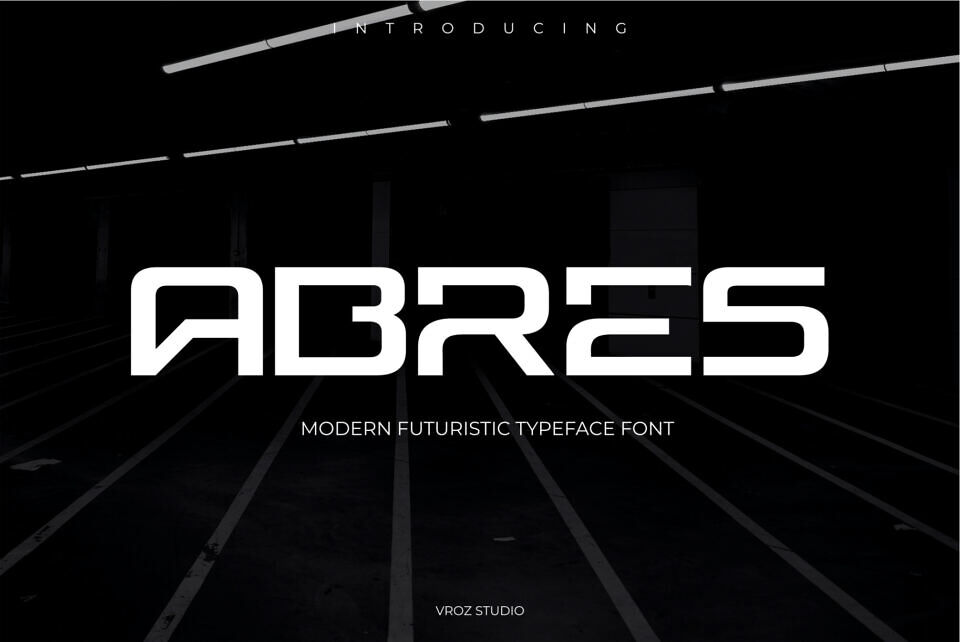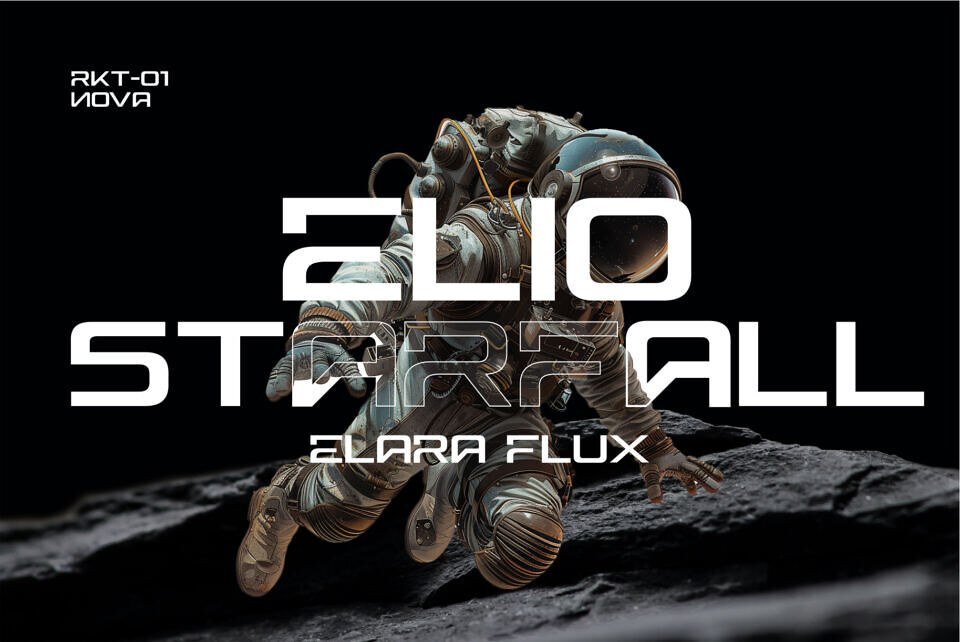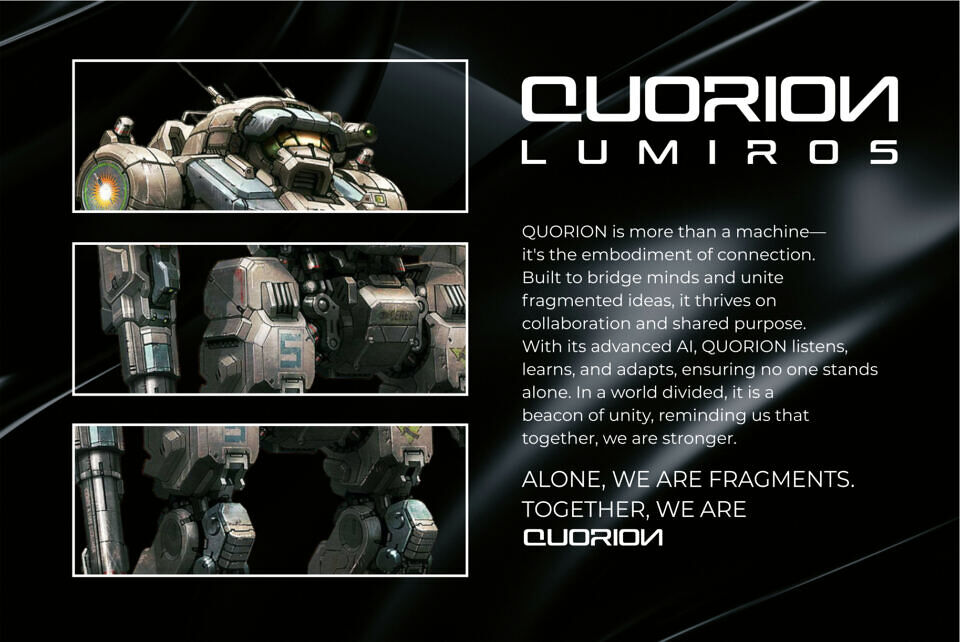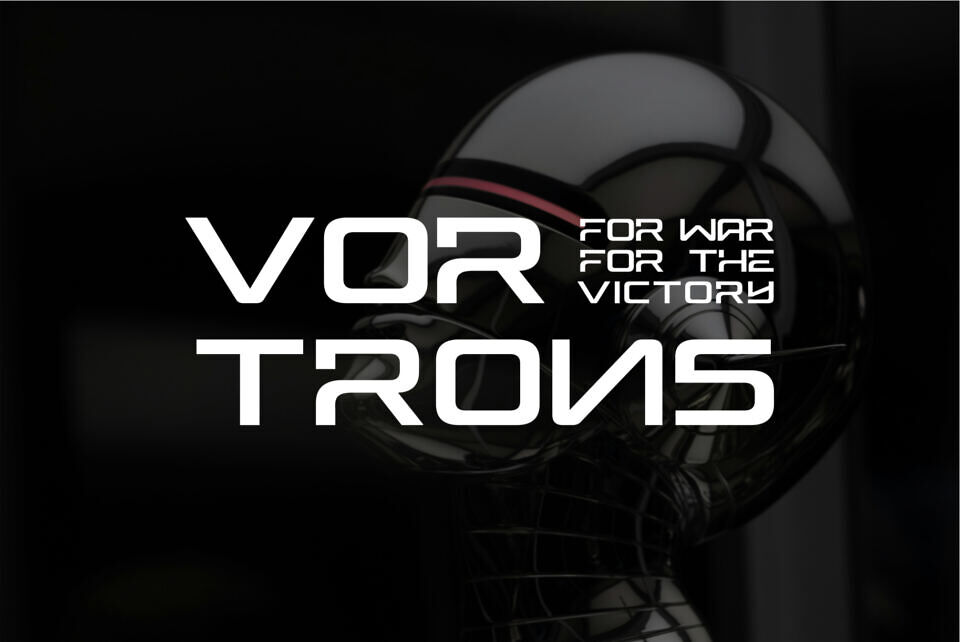
Abres Font
ABRES is a futuristic modern sans-serif font crafted for clarity, precision, and contemporary design needs. With its geometric structure, clean cuts, and smooth transitions, ABRES delivers a confident and forward-looking visual style suitable for modern digital environments.
ABRES works seamlessly across a wide range of creative projects, including branding, technology-related designs, gaming visuals, posters, UI/UX layouts, and web interfaces. The strong yet minimalist character allows the font to stand out without overpowering the overall design.